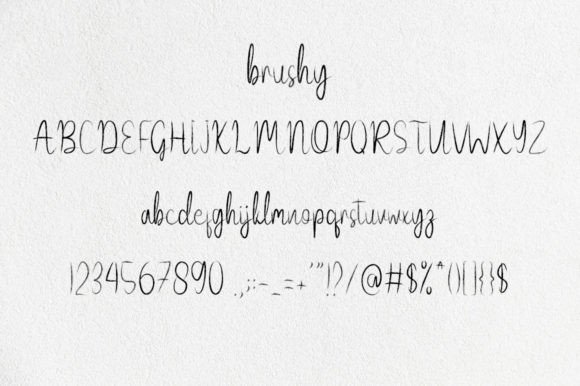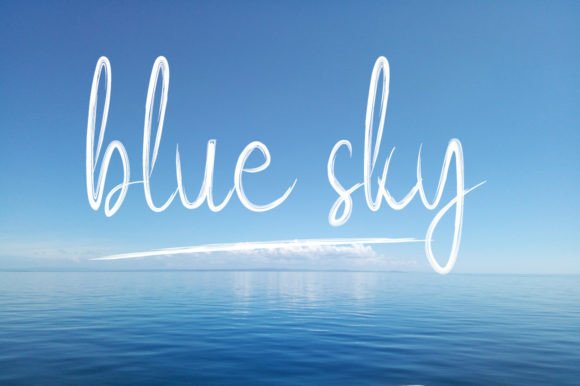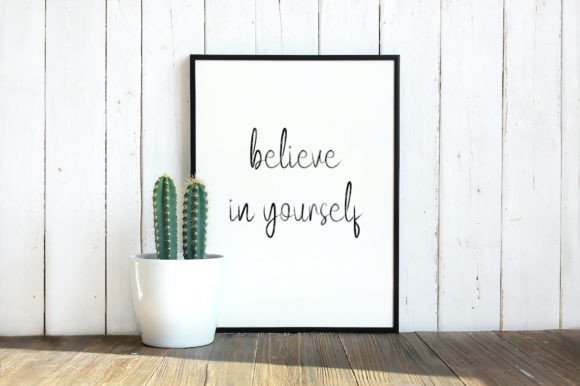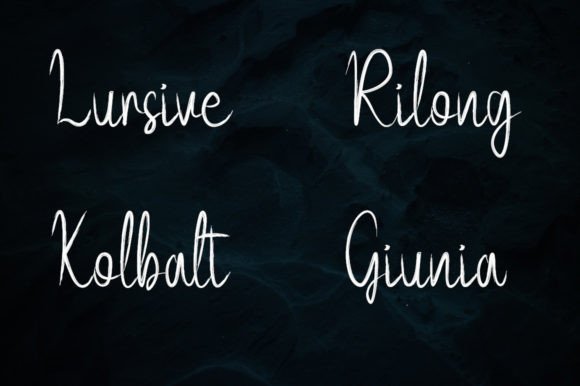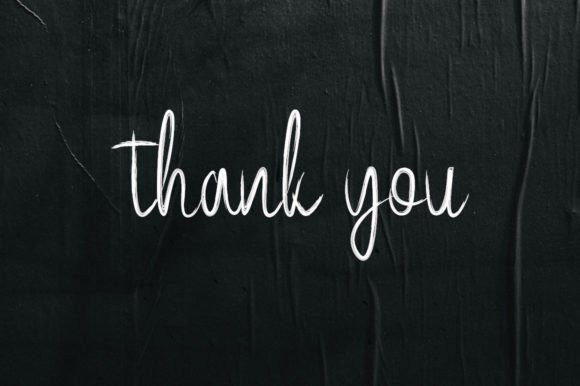
Introducing Brushy Font: The Perfect Handwritten Font for Designers and Crafters
Are you looking for a font that adds a personal touch to your design projects? Look no further than Brushy Font, a fun handwritten font with an elegant and vintage feel. This versatile font is perfect for designers and crafters who want to add a unique and creative element to their work.
What is Brushy Font?
Brushy Font is a handwritten font that mimics the look of brush calligraphy. It has a distinctive, elegant feel that is reminiscent of vintage signs and posters. The font is designed to be highly legible and versatile, making it perfect for a wide range of design projects.
Key Features of Brushy Font
- Elegant and Vintage Feel: Brushy Font has a unique, elegant feel that is perfect for designers who want to add a touch of sophistication to their work.
- Highly Legible: The font is designed to be highly legible, making it perfect for use in a variety of contexts, from logos and branding to t-shirt printing and creative products.
- Versatile: Brushy Font is highly versatile and can be used in a wide range of design projects, from digital designs to print materials.
- Handwritten: The font has a handwritten feel that adds a personal touch to any design project.
Uses for Brushy Font
Brushy Font is perfect for a wide range of design projects, including:
- Logos and Branding: Use Brushy Font to create a unique and memorable logo for your business or brand.
- T-Shirt Printing: Add a personal touch to your t-shirt designs with Brushy Font.
- Creative Products: Use Brushy Font to add a creative element to your products, such as mugs, tote bags, and more.
- Signs and Posters: Brushy Font is perfect for creating eye-catching signs and posters.
Why Choose Brushy Font?
There are many reasons why designers and crafters choose Brushy Font for their design projects. Here are just a few:
- Unique and Creative: Brushy Font adds a unique and creative element to any design project.
- Elegant and Sophisticated: The font has an elegant and sophisticated feel that is perfect for designers who want to add a touch of class to their work.
Tips for Using Brushy Font
Here are a few tips for using Brushy Font in your design projects:
- Use it Sparingly: Brushy Font is a bold font, so use it sparingly to add emphasis to your design.
- Experiment with Colors: Brushy Font looks great in a variety of colors, so experiment with different colors to find the one that works best for your design.
- Pair it with Other Fonts: Brushy Font pairs well with other fonts, so try pairing it with a sans-serif font for a unique look.
Brushy Font is a fun handwritten font with an elegant and vintage feel that is perfect for designers and crafters who want to add a personal touch to their work. With its highly legible and versatile design, Brushy Font is perfect for a wide range of design projects, from logos and branding to t-shirt printing and creative products. Whether you’re looking for a unique and creative element to add to your design or want to create a sophisticated and elegant look, Brushy Font is the perfect choice.